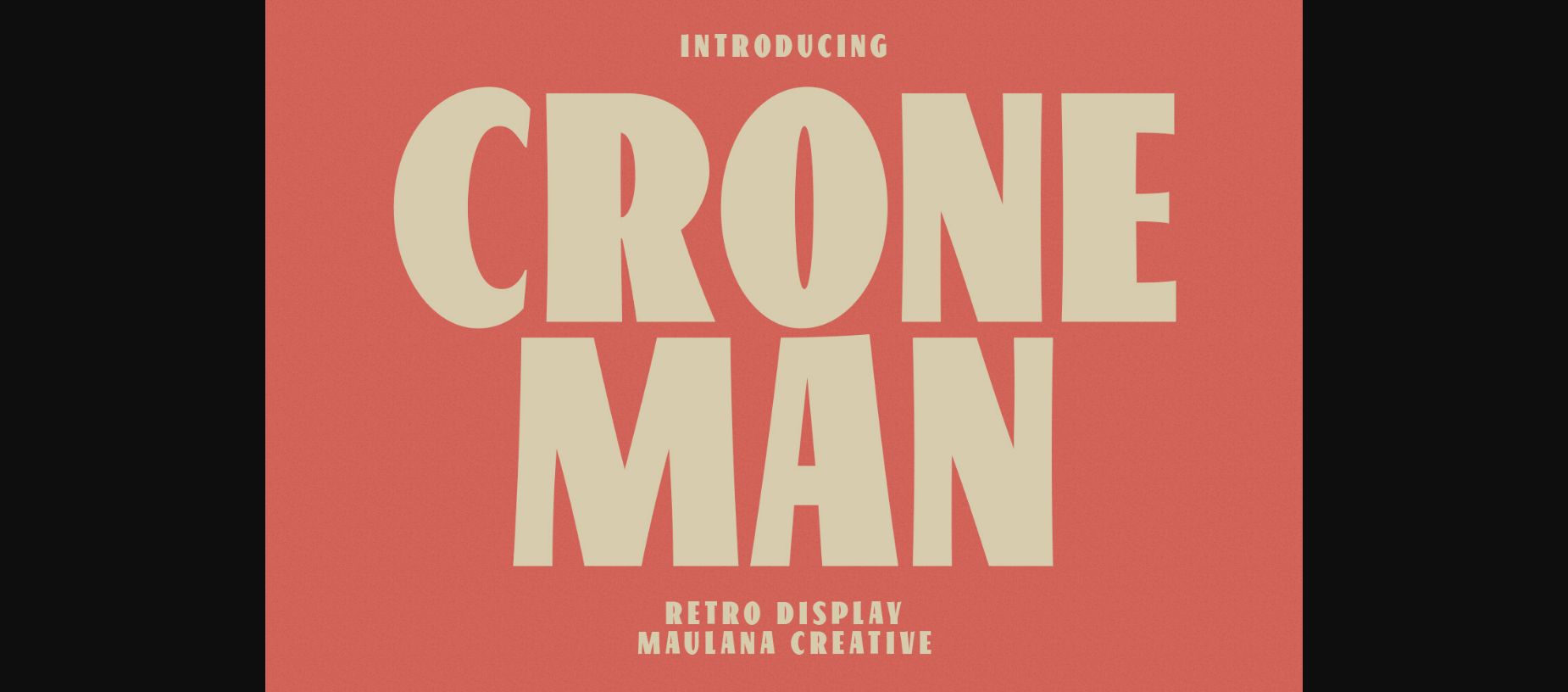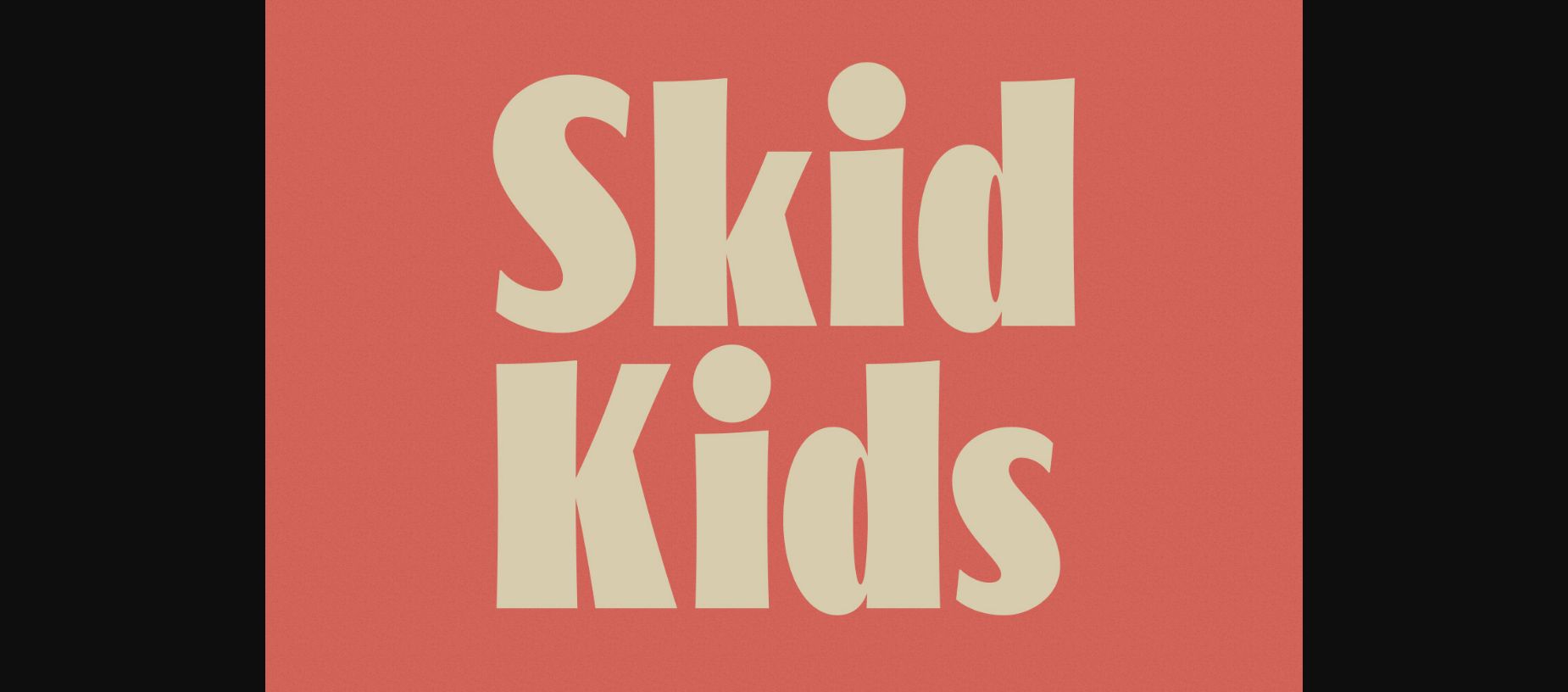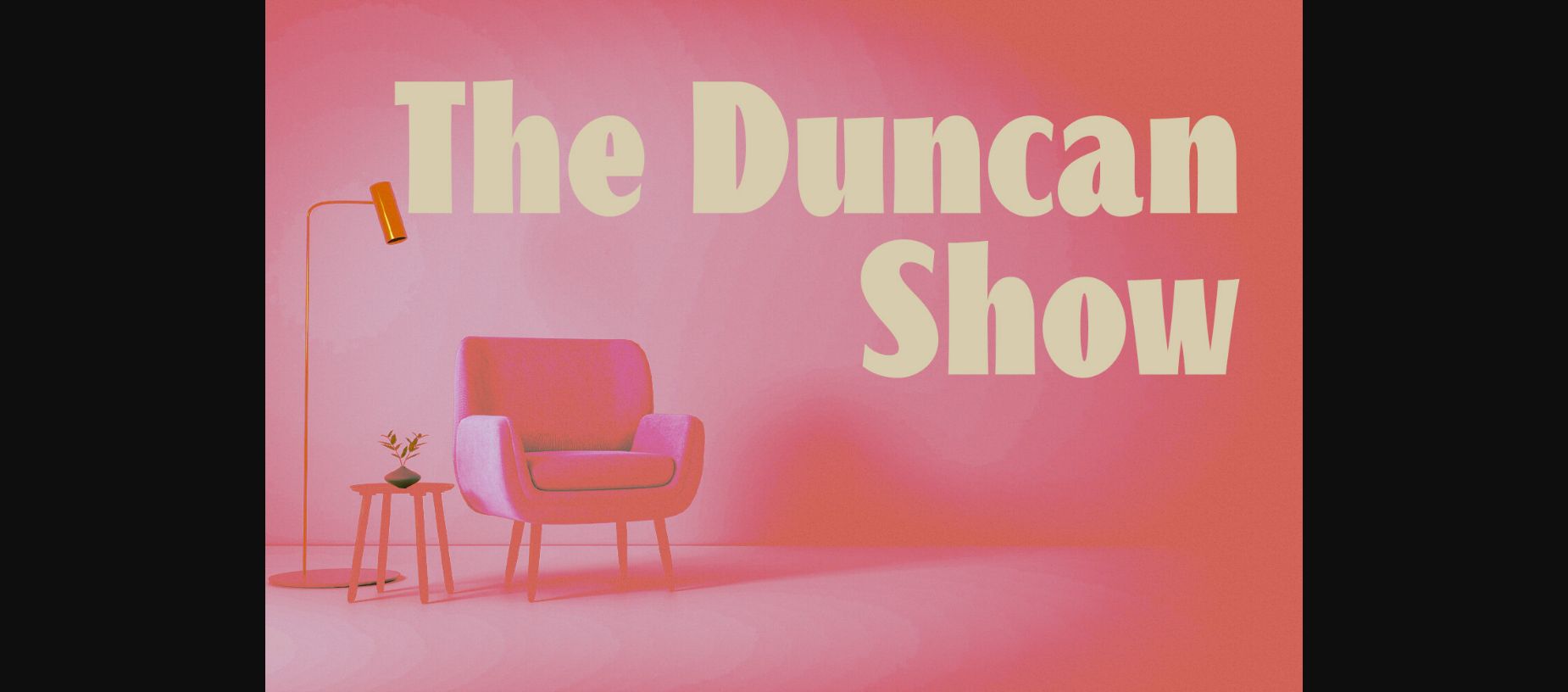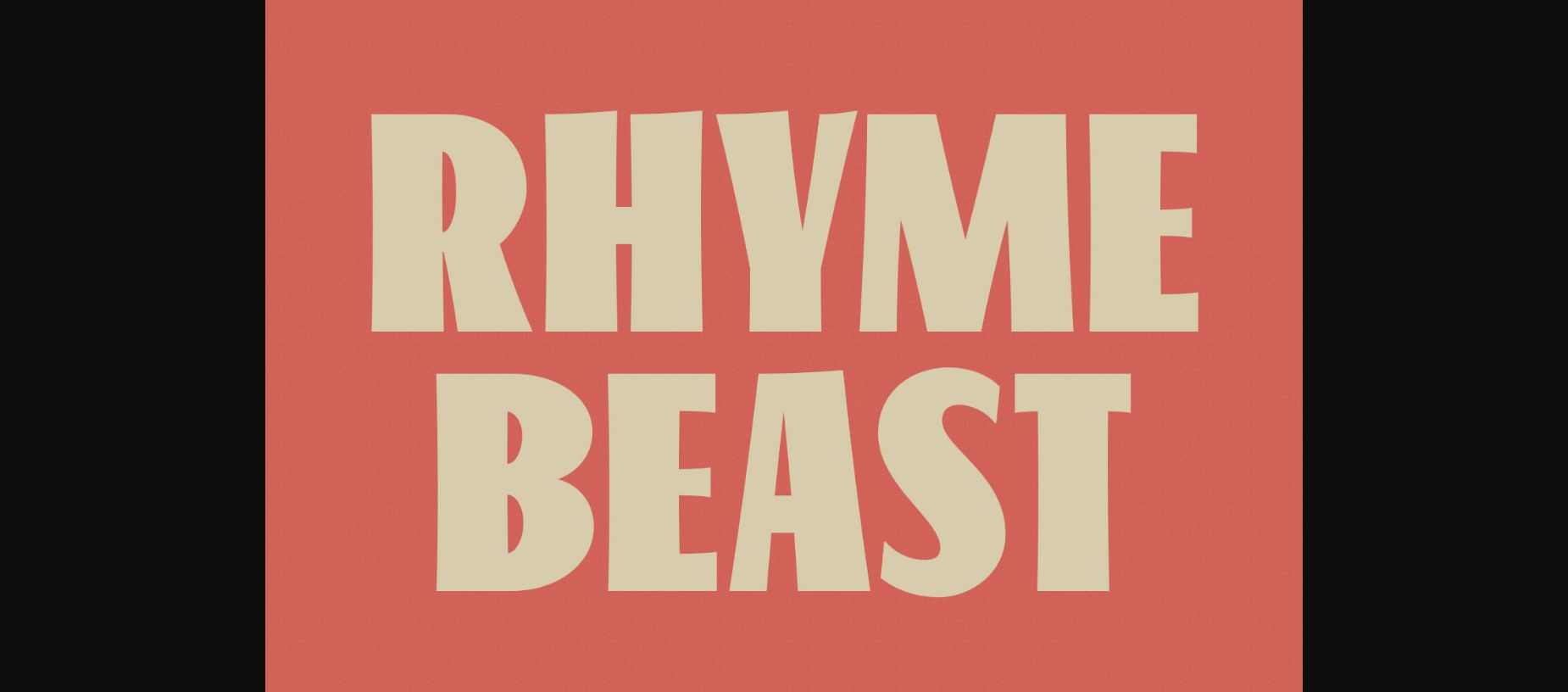
About Croneman Font
Croneman is a retro sans display font. This font is good for logo design, Social media, Movie Titles, book titles, short text even long text letters and good for your secondary text font with script or serif. Make a stunning work with Croneman font.